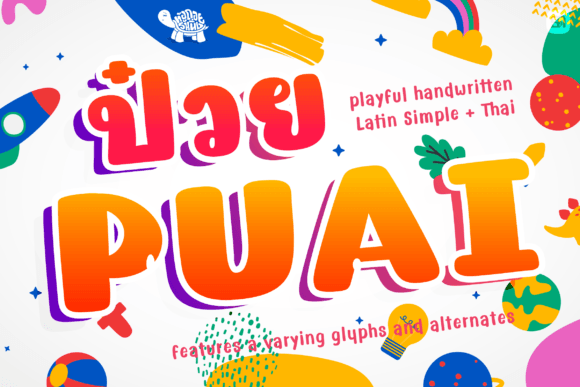
Introducing Puai Font, the playfully handwritten display font that will add instant cheer to your designs. Picture this: you're crafting a quirky social media post, designing an eye-catching poster, or creating a playful video.
And right when you need that extra spark of fun, you discover Puai Font. Its bold, chunky letters dance across the page, embodying the spirit of laughter and lightheartedness. With Puai Font, your designs won't just speak; they'll burst into giggles.
Imagine the smiles that will spread across your audience's faces as they encounter your Puai-infused creations. Whether it's a whimsical invitation, a vibrant banner, or a captivating video, Puai Font will effortlessly transform ordinary designs into extraordinary expressions of joy.
Don't settle for dull, lifeless fonts. Embrace the playful spirit of Puai Font and let your designs radiate infectious happiness. Its playful curves and cheerful strokes will make your creations irresistible, leaving an unforgettable impression on all who encounter them.